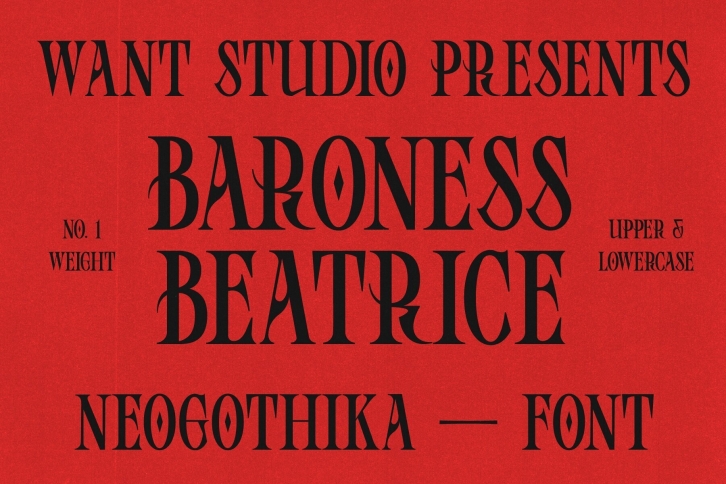
Introducing Baroness Beatrice, a font that melds contemporary elegance with the mystique of blackletter design. With sharp letterforms inspired by tales of feminine strength, this all-caps font of 26 letters is crafted specifically for headlines.
Each character echoes narratives of empowerment and grace, offering a unique blend of medieval vigor and modern sophistication. Perfect for projects requiring aristocratic flair or robust assertiveness, this recent version invites you to explore a typeface that's both historical and elegant.
Details:
• Full uppercase set
• Full lowercase set
• Numerals
• Majority-use accents
• Common-use symbols